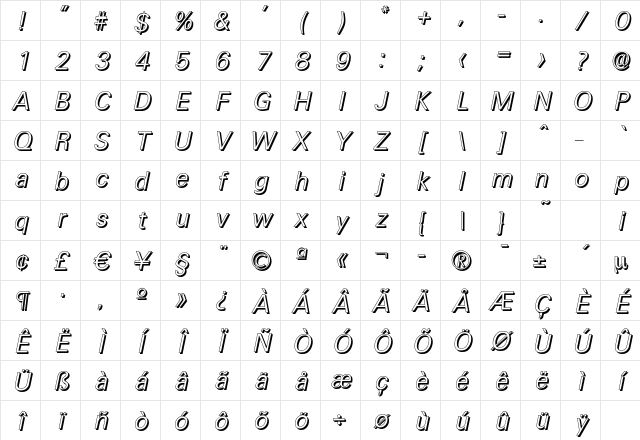
UltimateDropShadow-Light Italic
UltimateDropShadow-Light Family
UltimateDropShadow-Light Italic
Complete UltimateDropShadow-Light Italic glyph index. Displaying only characters natively supported by UltimateDropShadow-Light Italic font.
Design Context for UltimateDropShadow-Light
UltimateDropShadow-Light is built around its visual character rather than neutral utility - its distinctive forms are designed to make an impression at display sizes. The slanted form adds forward momentum and visual energy. Its slender proportions lend an understated elegance to any composition.
Font Pairing: Pair with a clean neutral sans-serif for body copy to let UltimateDropShadow-Light's character lead without overwhelming the composition.
Pro Tip: Use UltimateDropShadow-Light exclusively at display sizes - it was designed to be seen, not read at length. Let a neutral companion handle body copy.